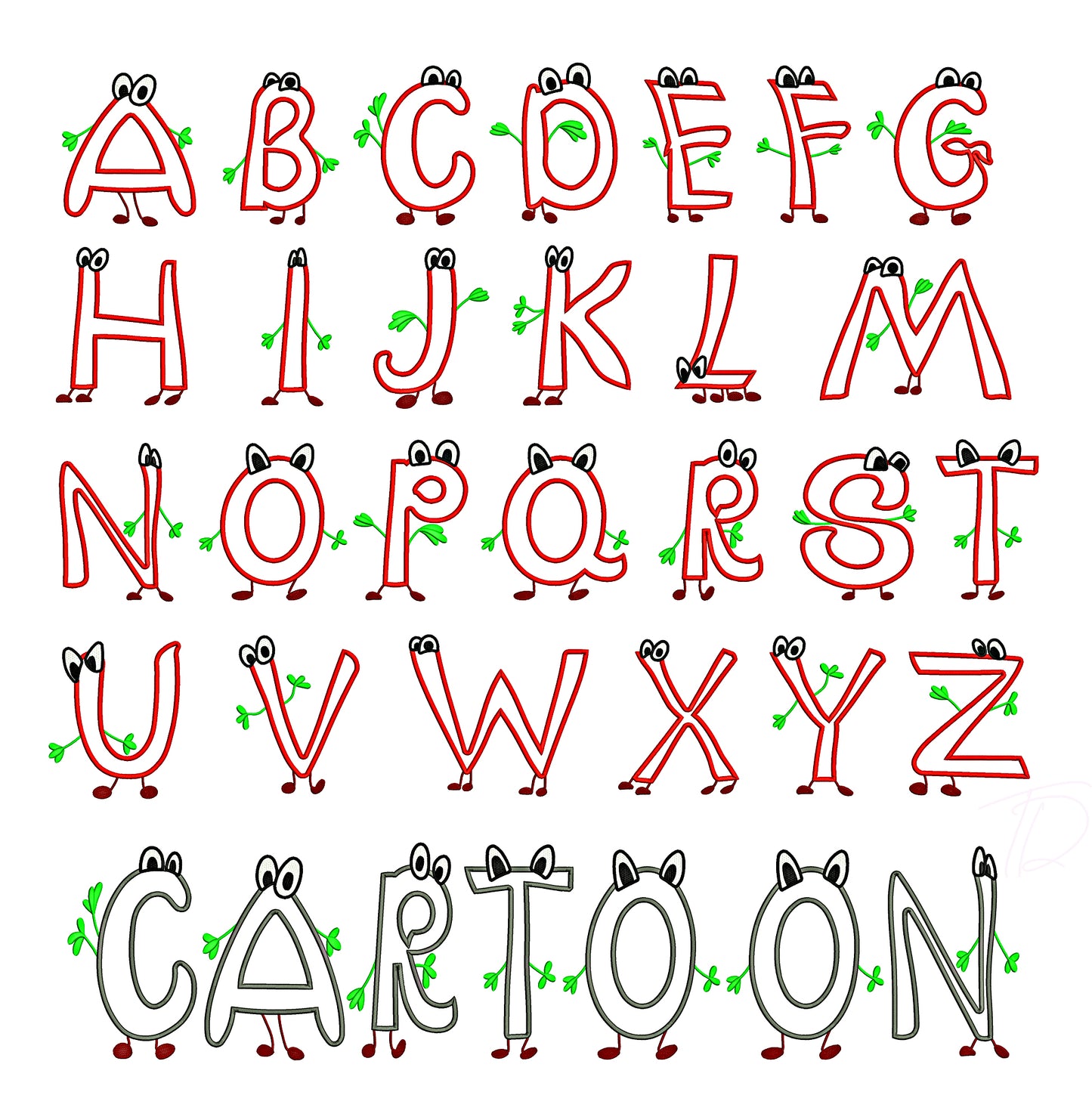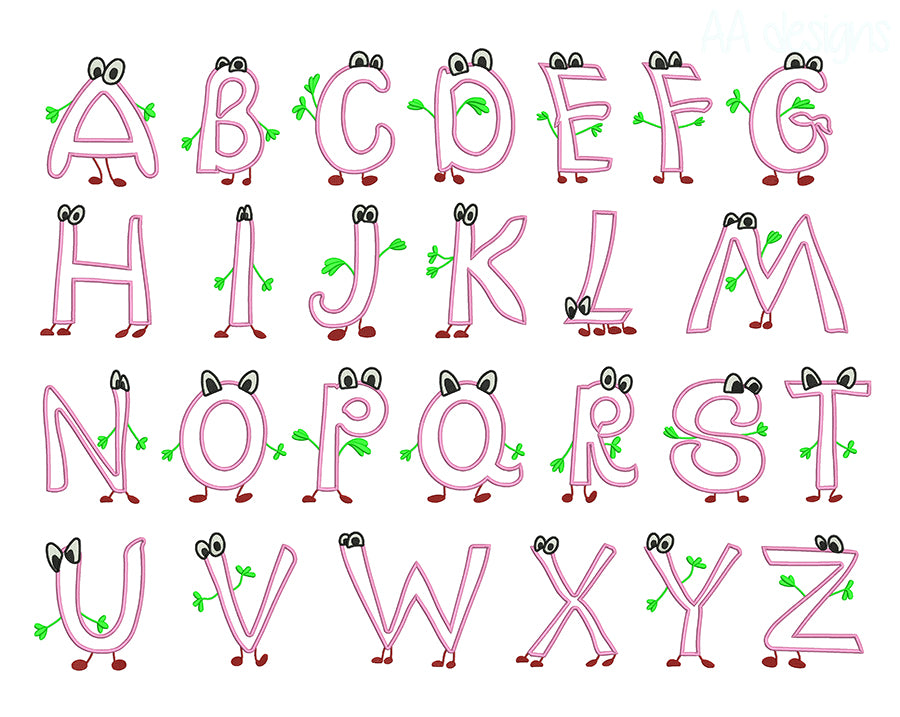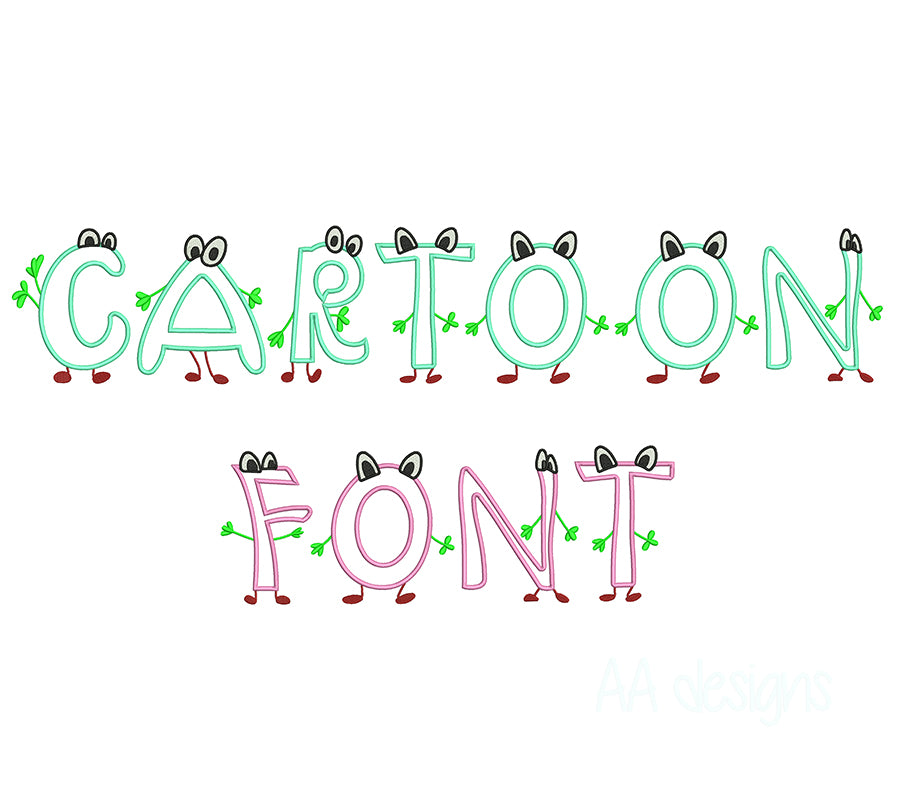
Cartoon Applique Embroidery Font
Bring the fun to life with our Cartoon Applique Embroidery Font — a whimsical, playful alphabet built for applique machine embroidery. With chunky, rounded letterforms and a vibrant layered fabric finish, this font is guaranteed to make kids and kids-at-heart smile.
- Applique-style construction for a colorful, dimensional look with lower stitch count
- Bubbly, cartoon-inspired letterforms — fun, friendly, and full of character
From personalizing a toddler's first backpack to creating a one-of-a-kind birthday gift, this cartoon applique font adds a splash of joy and color to every project.